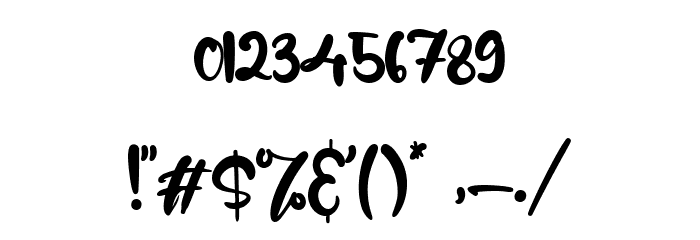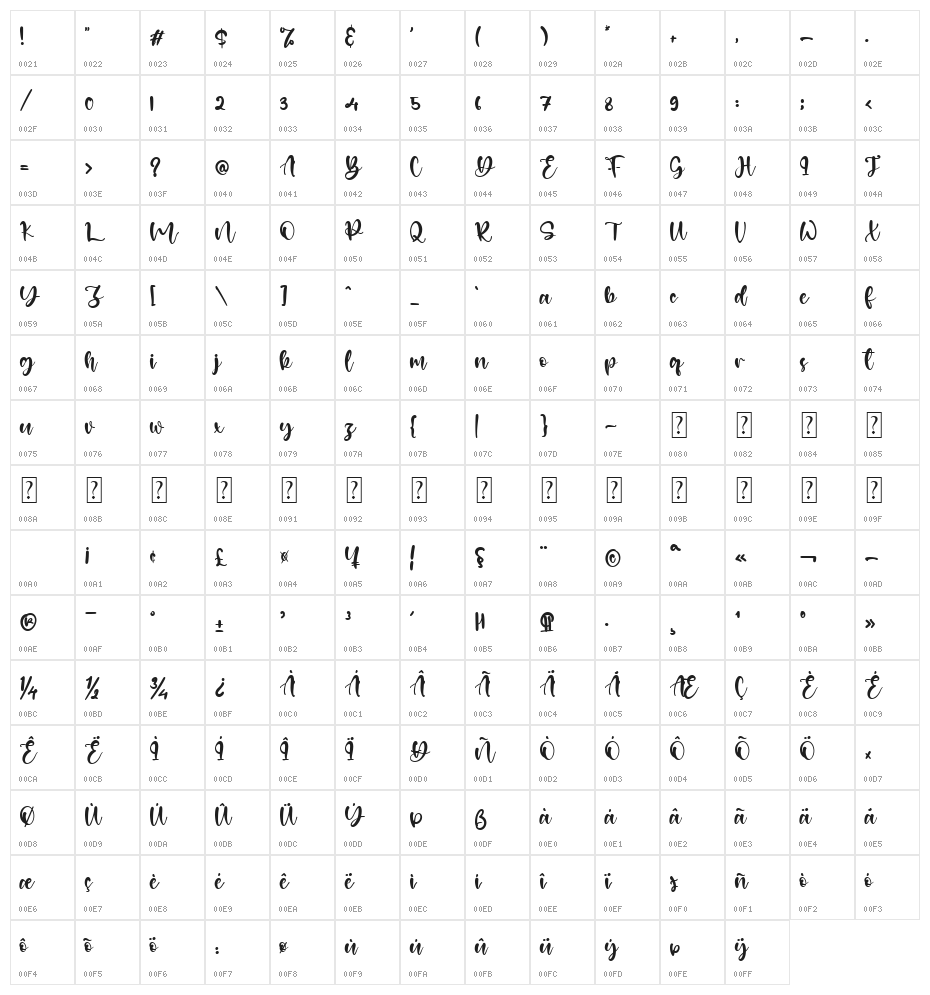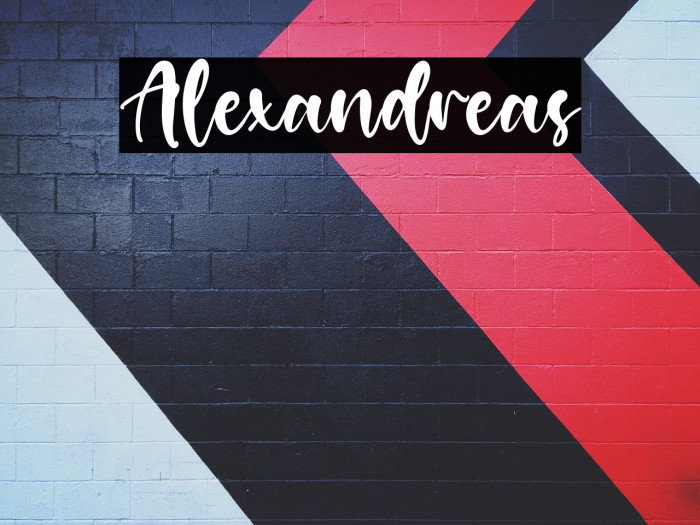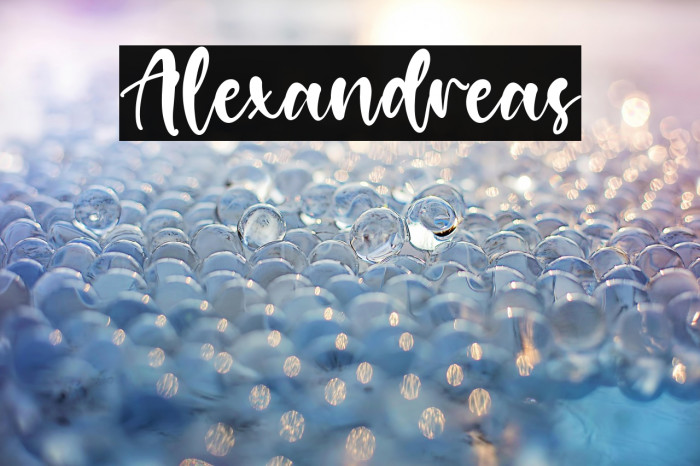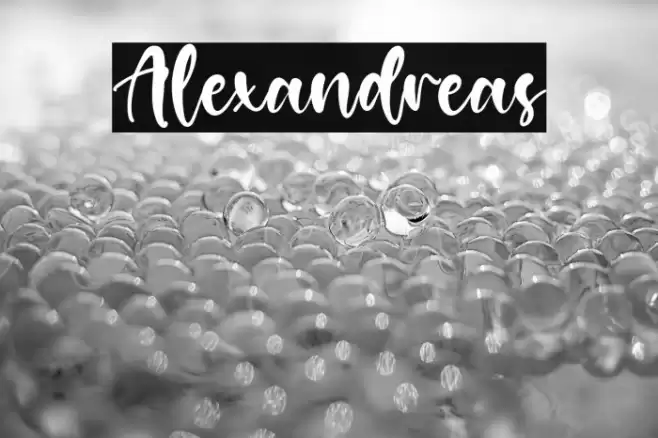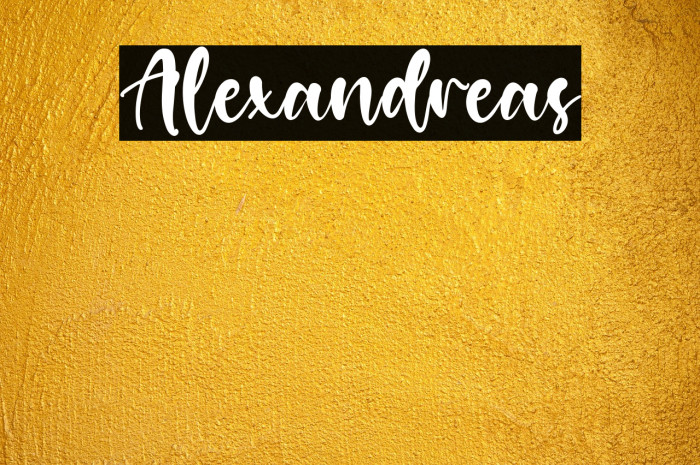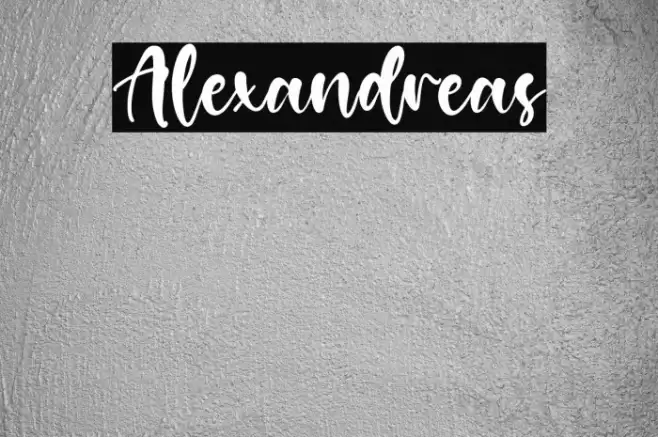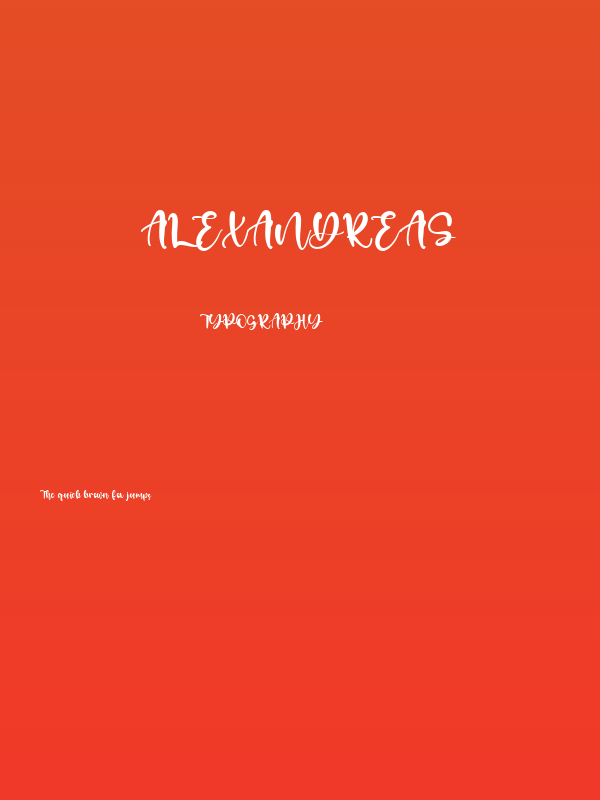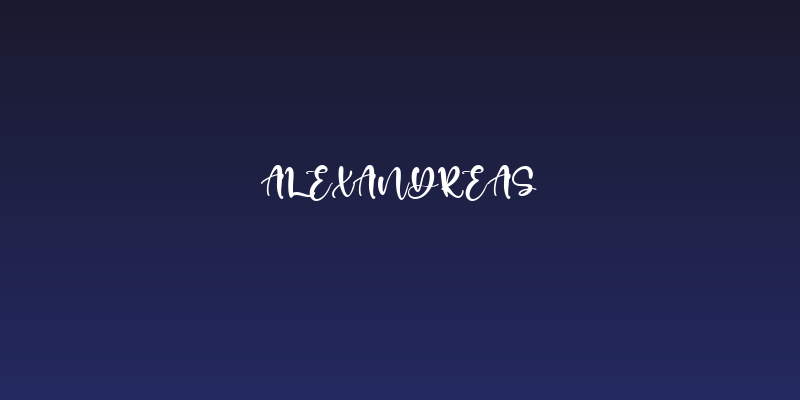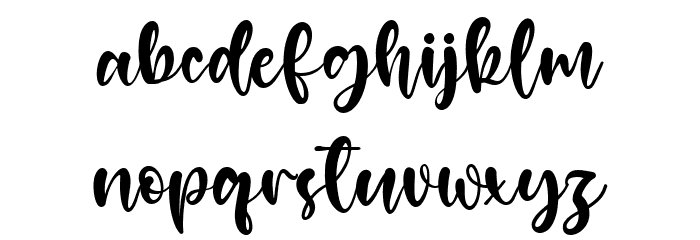
Alexandreas Font
Alexandreas Description
This font features a lively and flowing script style, characterized by its bold and expressive strokes. The letters are interconnected, giving it a cohesive and fluid appearance. The uppercase letters exhibit a dramatic flair with sweeping curves and loops, while the lowercase letters maintain a consistent rhythm and balance. The numerals and special characters complement the overall design with their playful and dynamic forms. This font exudes a sense of elegance and creativity, making it ideal for projects that require a personal and artistic touch.